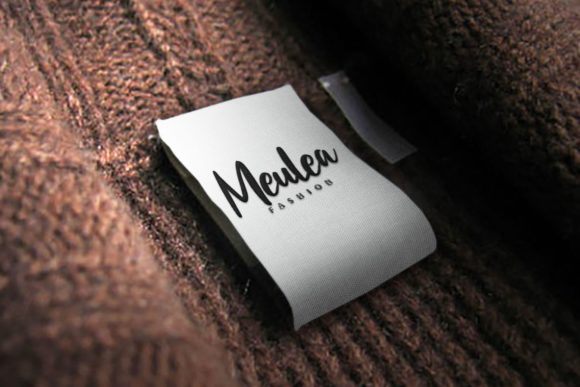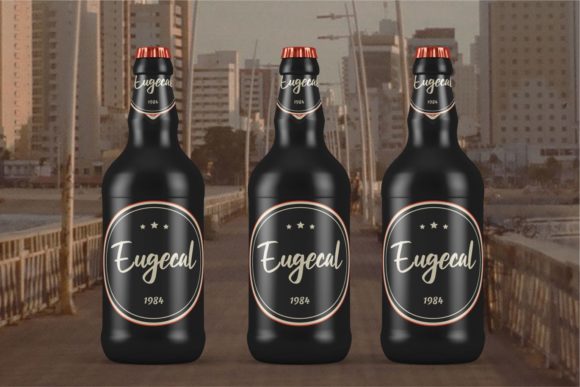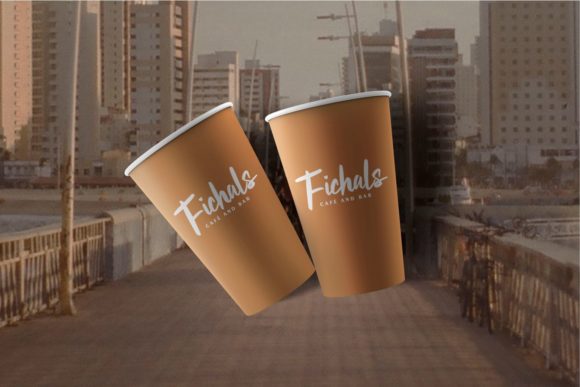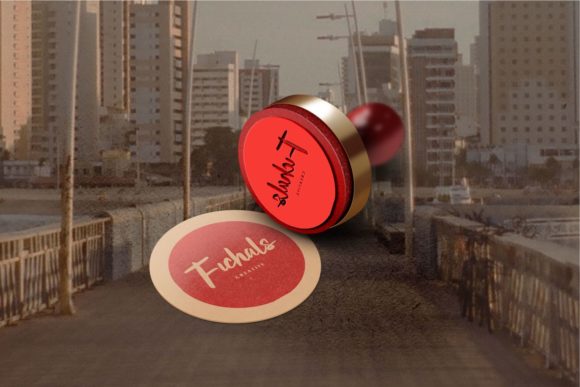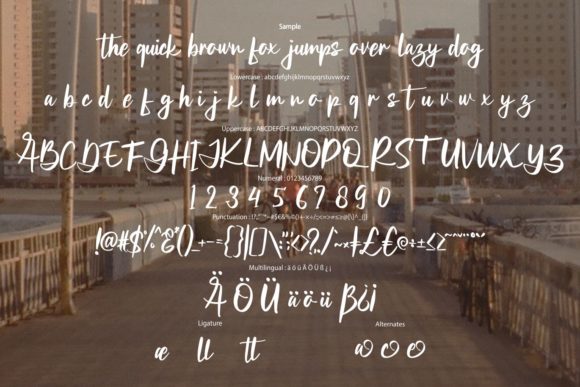
Dartcha Font: Elevate Your Designs with Elegance and Whimsy
In the world of typography, fonts play a crucial role in conveying the tone and personality of a design. For crafty enthusiasts and designers seeking a touch of elegance and playfulness, the Dartcha Font is an excellent choice. This beautiful, handwritten font boasts delicate swashes and a sophisticated aesthetic, making it perfect for a wide range of creative projects.
What is Dartcha Font?
Dartcha is an elegant and dainty handwritten font that features sweet and delicate swashes. Its trendy look is sure to appeal to designers and crafters looking for a unique and eye-catching typography solution. Whether you’re working on letterheads, titles, stationery, or any other design project, Dartcha Font is an excellent choice.
Key Features of Dartcha Font
• Elegant and Dainty: Dartcha Font boasts a refined and delicate appearance, perfect for designs that require a touch of sophistication.
• Sweet and Delicate Swashes: The font features beautiful swashes that add a playful and whimsical touch to your designs.
• Trendy Look: Dartcha Font has a modern and trendy aesthetic that’s sure to make your designs stand out.
• Versatile: This font is suitable for a wide range of design projects, from letterheads and titles to stationery and more.
Uses of Dartcha Font
Dartcha Font is a versatile typography solution that can be used in various design projects, including:
• Letterheads: Add a touch of elegance to your business correspondence with Dartcha Font.
• Titles: Use Dartcha Font to create eye-catching titles for your blog posts, articles, or social media content.
• Stationery: Create beautiful and unique stationery designs, such as greeting cards, invitations, or thank-you cards.
• Branding: Dartcha Font can be used to create a cohesive brand identity for your business or personal brand.
Benefits of Using Dartcha Font
By incorporating Dartcha Font into your designs, you can:
• Elevate Your Designs: Add a touch of elegance and sophistication to your designs.
• Stand Out: Use Dartcha Font to create unique and eye-catching designs that set you apart from the competition.
• Save Time: With Dartcha Font, you can quickly and easily create professional-looking designs without spending hours on typography.
Tips for Using Dartcha Font
To get the most out of Dartcha Font, follow these tips:
• Experiment with Swashes: Play around with the font’s swashes to create unique and interesting variations.
• Pair with Other Fonts: Combine Dartcha Font with other fonts to create a cohesive and visually appealing design.
• Use in Combination with Images: Pair Dartcha Font with high-quality images to create stunning and effective designs.
Dartcha Font is a beautiful and elegant handwritten font that features sweet and delicate swashes. Its trendy look and versatility make it an excellent choice for designers and crafters seeking to elevate their designs. With its wide range of uses and benefits, Dartcha Font is sure to become a staple in your typography collection.